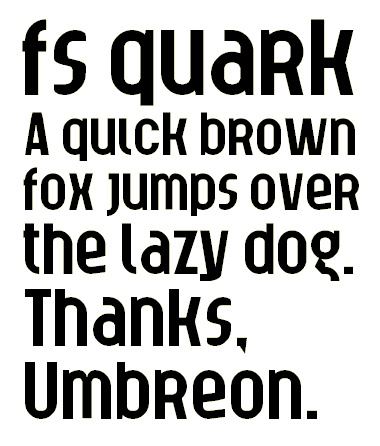
It looks really nice, I like it! Thanks for bothering to finish it for me :) (The alternates are in Bopomofo because no one here really needs it, and the Indian scripts are treated weirdly in Windows xD)
Don't I recognize that small "m" :) Alternative narrow "s" is cute. Reminds me of some astonishing works by William, Aphoria, Demonics etc. Totally support the TP selection.
this kinda reminds me of those letter/fridge magnets i have...